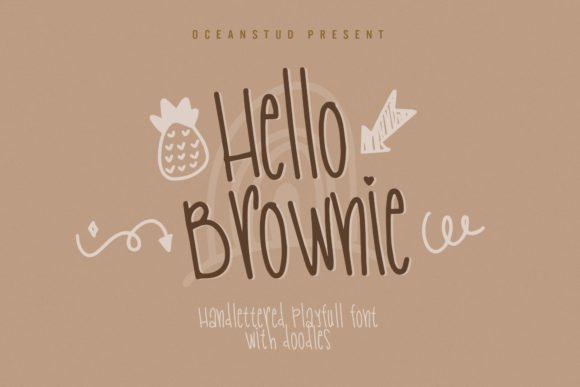
The Perfect Match for Your Creative Projects
Have you ever found yourself rummaging through your stash of colored pens and paper, searching for the perfect combination to bring your latest crafting project to life? It’s those magical moments of creativity that make us remember why we love making things in the first place.
For designers, finding the right font can be just as exciting. That’s where the Hello Brownie Font comes in – a playful and whimsical handwritten font designed to add a personal touch to any project. Whether you’re working on a digital design, creating a presentation, or crafting greeting cards, this font is perfect for making your creations stand out.
With the Hello Brownie Font, you’ll have the versatility to express your unique style and bring your ideas to life. Its value lies in its ability to add a touch of warmth and personality to even the most mundane projects, making it a must-have for any designer looking to elevate their work.
Hello Brownie Font Key Features
- Unique Characteristics: The font features a unique, hand-drawn design with a brownie-inspired theme, adding a touch of whimsy and playfulness to any design project.
Hello Brownie Font Review
I recently had the chance to work with the Hello Brownie Font, and I must say it’s a unique and quirky addition to any design project. ✨ The font’s eclectic mix of cursive and handwritten elements adds a touch of personality to any text.
- ✨ Unique character set: The font features a wide range of characters, including punctuation and numerals, which makes it perfect for longer blocks of text.
- ✨ Beautifully crafted: The font’s creator has done an excellent job of balancing the flow and legibility of the font, making it a joy to read.
However, there are a few limitations to consider: ⚠️ The font’s irregular shape and spacing can make it challenging to use in smaller text sizes or for complex layouts.
- ⚠️ Limited font sizes: The font may become difficult to read when scaled down to very small sizes.
- ⚠️ Limited compatibility: The font may not work well with certain operating systems or fonts that use a different character set.
Overall, I think the Hello Brownie Font is a great choice for designers who want to add a bit of whimsy and personality to their work. With a little planning and care, it can be a fantastic addition to any project.
Tips: Use the Hello Brownie Font for creative and playful designs, such as food blogs or children’s party invitations.
Tips: Use the Hello Brownie Font for creative and playful designs, such as logos or greeting cards.
Tips: Use the Hello Brownie Font for creative and playful presentations or documents, such as party invitations or children’s activity sheets.
The Hello Brownie Font is suitable for a variety of creative and playful designs, including:
- Food blogs and recipes
- Greeting cards and stationery
- Pair the font with a combination of pastel colors and cute illustrations to evoke a sense of nostalgia and warmth.
- Consider adding a custom-designed bakery item (e.g. a brownie, cupcake, or cookie) to the logo to tie in with the bakery theme.
- Balance the playful font with a more elegant or modern sans-serif font to add contrast and visual interest.
- Choose a bright and cheerful color scheme to match the lively and approachable tone of the font.
Create a logo for a charming bakery that showcases the playful, childlike essence of the Hello Brownie Font.
Project 2: Charming Food Blog Menu Board
Design a menu board for a food blog that showcases the versatility and charm of the Hello Brownie Font.
Project 3: Custom Wedding Invitation Suite
Create a custom wedding invitation suite that incorporates the Hello Brownie Font in a more elegant and sophisticated way.